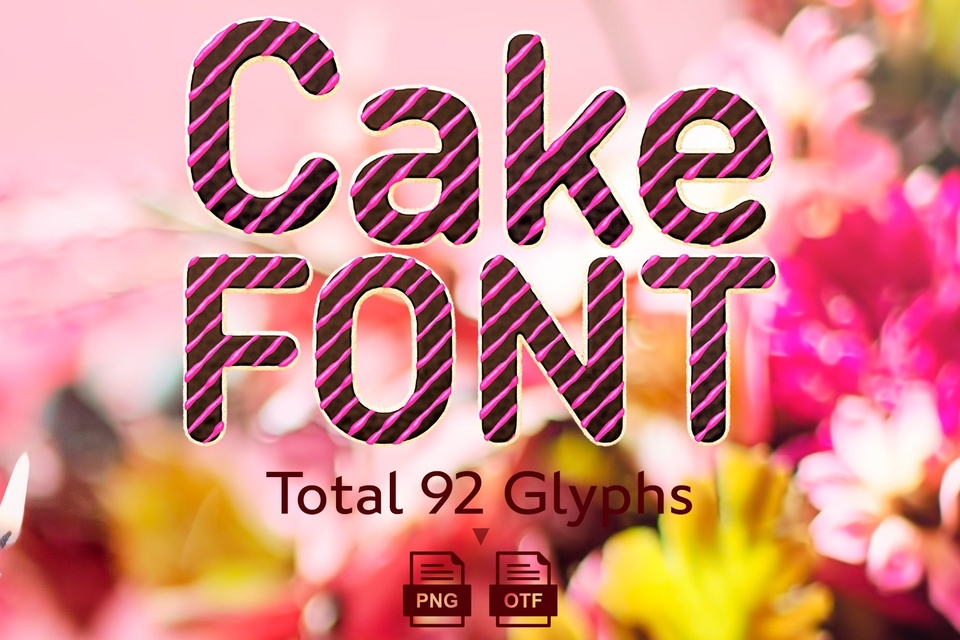
Cake Font and 3D PNG Lettering Set
Sweet Dreams: High-Resolution Transparent PNGs and Cake Style Font Add some sugar and spice to your designs with this tasty font set!
This delightful package includes a set of 3D rendered, high-resolution transparent PNG lettering of a cake style font, as well as a color bitmap font in OpenType format. The font includes uppercase and lowercase letters, numbers, and punctuation marks, all adorned with cute and colorful cake-themed graphics. The PNGs are perfect for adding a touch of whimsy and fun to any project.